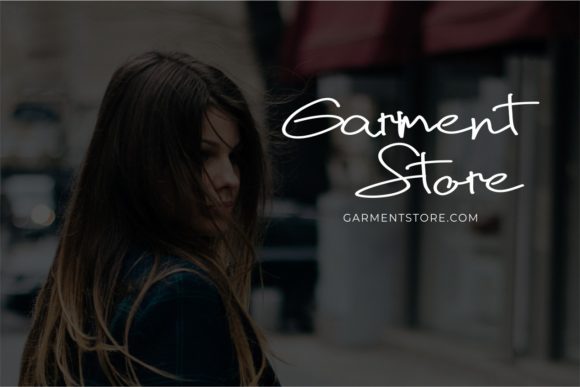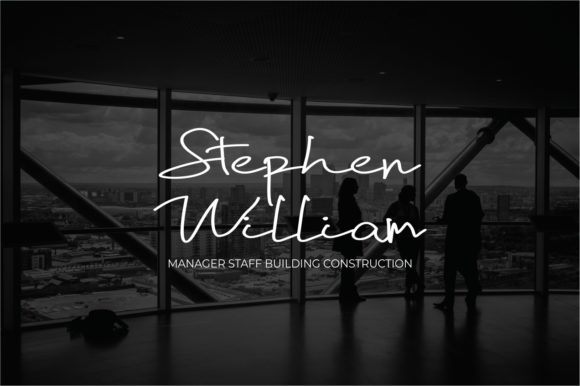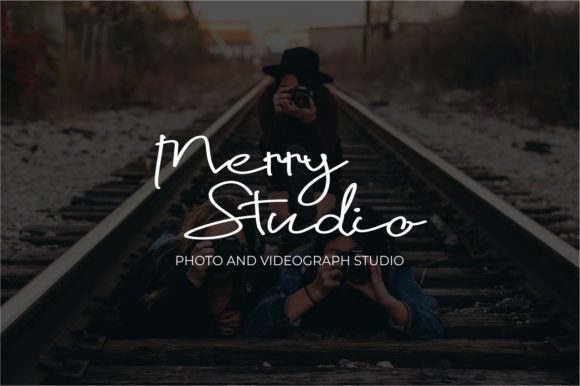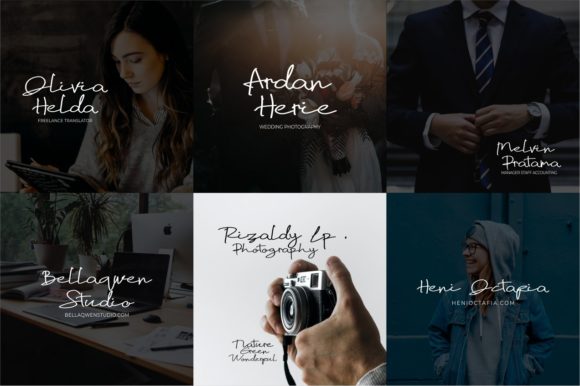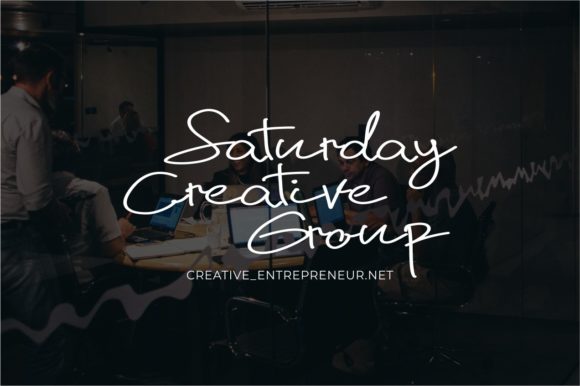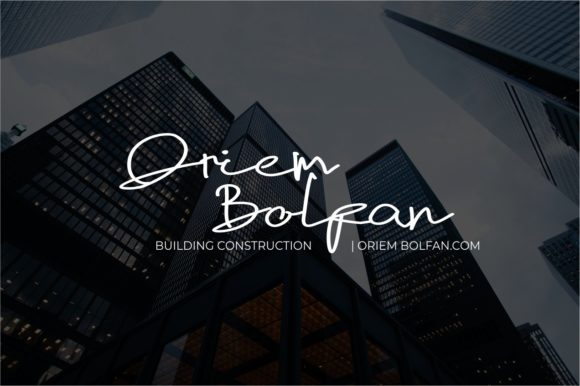
Amsterodam Font
About Amsterodam Font
Amsterodam is a distinctive and refined handwritten font that adds a touch of uniqueness to a wide array of design projects. Its aesthetic appeal makes it particularly well-suited for applications that demand a personalized and stylish touch, ranging from wedding invitations and thank-you cards to greeting cards and logos.
This font’s charm lies in its handcrafted elegance, creating a captivating visual experience that enhances the overall aesthetic of your designs. When applied to wedding invitations, Amsterodam infuses a romantic and personalized feel, setting the tone for a memorable celebration of love.
For expressions of gratitude, such as thank-you cards, Amsterodam brings a warm and genuine quality to your message. Its handwritten style adds sincerity and authenticity, making your appreciation even more heartfelt and meaningful.
In the realm of weddings, Amsterodam contributes to the creation of a cohesive and visually appealing theme. Whether used in wedding programs, signage, or other materials, the font complements the joyful atmosphere of the occasion with its elegant and unique strokes.
Greeting cards come to life with the distinctive touch of Amsterodam, transforming ordinary messages into heartfelt and visually appealing sentiments. The font’s handwritten quality adds a personal touch that resonates with the recipient, making your greetings stand out.
When it comes to logos, Amsterodam offers a fresh and stylish option. Its uniqueness sets your brand apart, making a memorable impression on your audience. Whether your business is in a creative industry or you simply want to convey a personal touch, this font is a versatile choice.
In summary, Amsterodam stands out as a unique and elegant handwritten font, suitable for a diverse range of design applications. Its versatility makes it a valuable asset for designers seeking to infuse their projects with a personalized and stylish flair, ensuring that the final result is both visually striking and emotionally resonant.